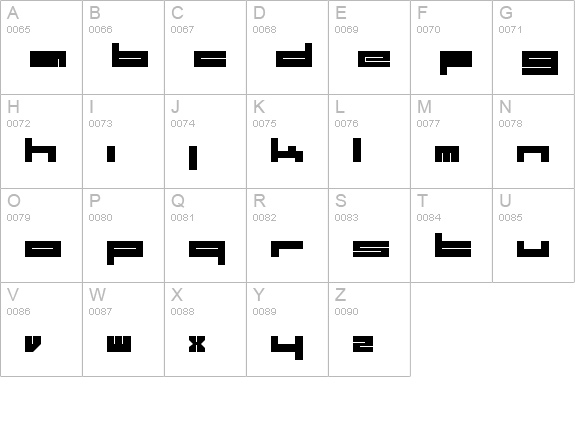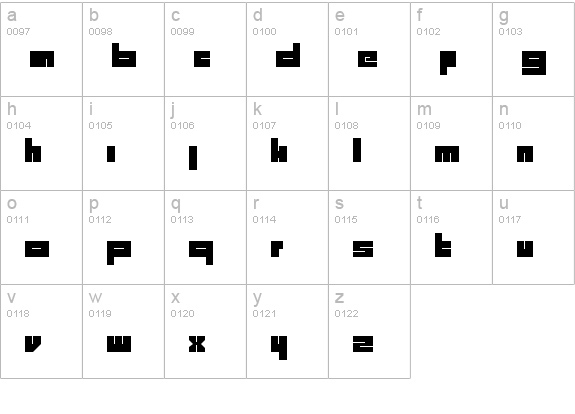
Laitos Font is a modern and stylish typeface that exudes sophistication and elegance. With its clean lines and sleek design, this font is perfect for a wide range of projects, from branding to editorial design. The versatility of Laitos Font makes it a must-have for any designer looking to elevate their work. The best part? Laitos Font is completely free to download at FontsMarket.com. This means you can access this high-quality font without any cost, making it a valuable addition to your font library. Don't miss out on the opportunity to enhance your designs with the timeless appeal of Laitos Font – download it today and see the difference it can make in your projects.